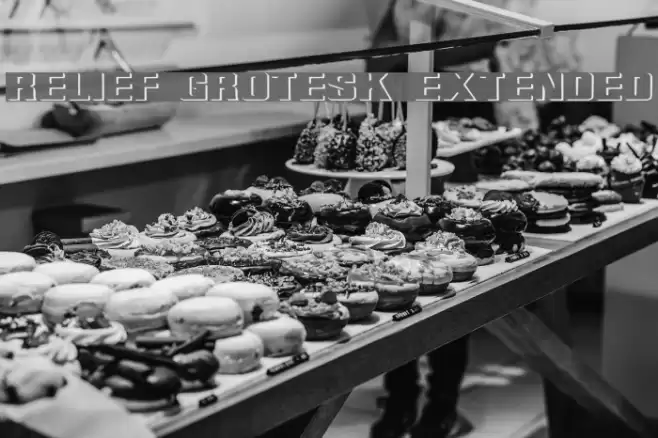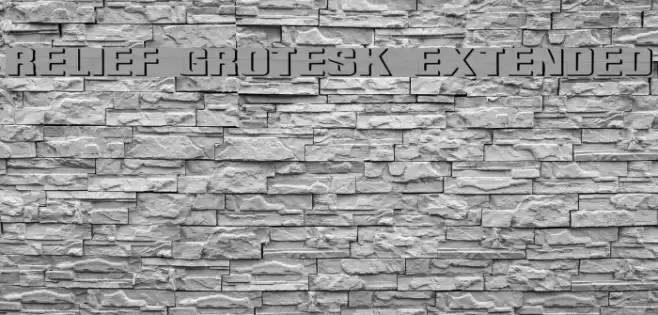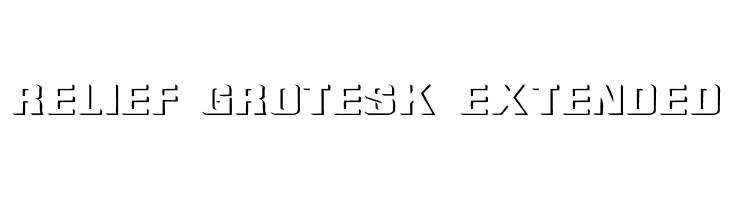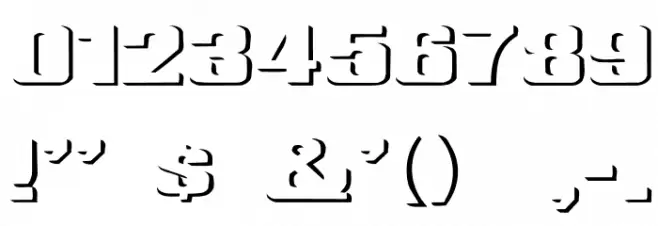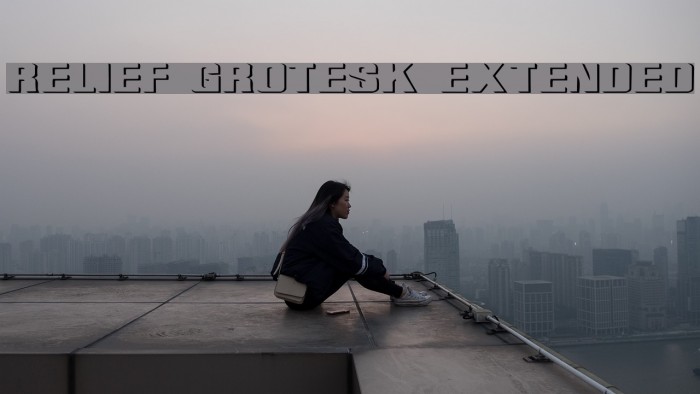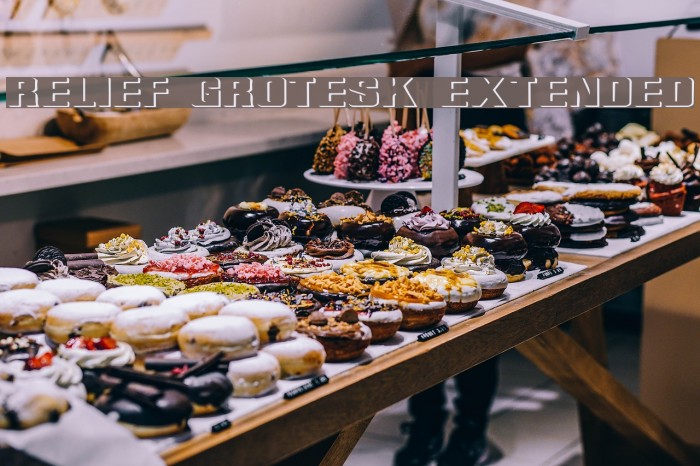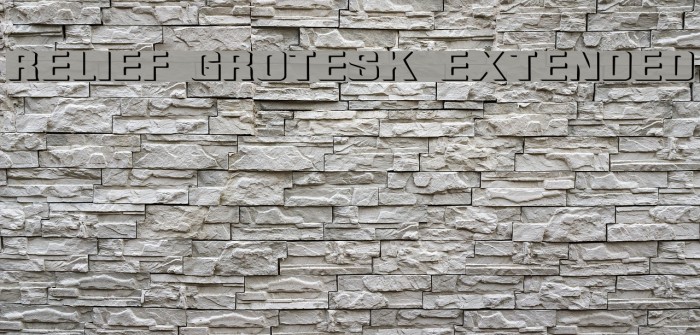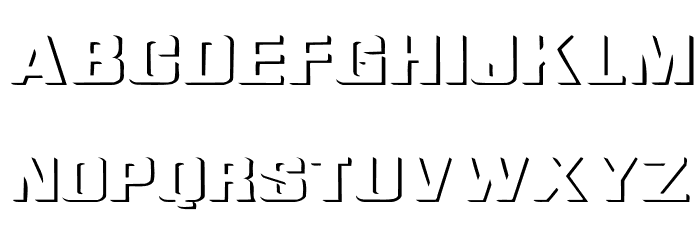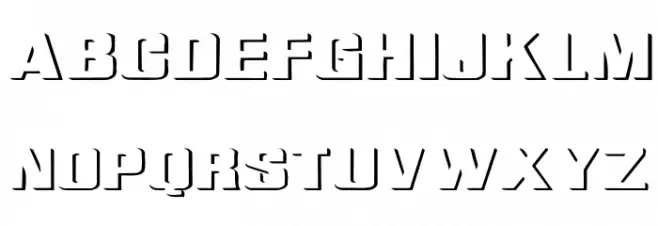
Relief Grotesk Extended
This font features a bold, extended style with a distinct three-dimensional effect. The characters have a strong, geometric structure with sharp angles and clean lines, creating a modern and industrial look. The extended width of the letters gives it a commanding presence, making it ideal for attention-grabbing designs. The unique shadow effect adds depth and dimension, enhancing its visual impact. This font is perfect for projects that require a bold statement, combining both modern aesthetics and a touch of retro flair.
A bold, extended font with a three-dimensional shadow effect.
- Proposed Projects: Ideal for posters, headlines, branding, and any design that needs a strong, impactful typeface.
- Width: Expanded